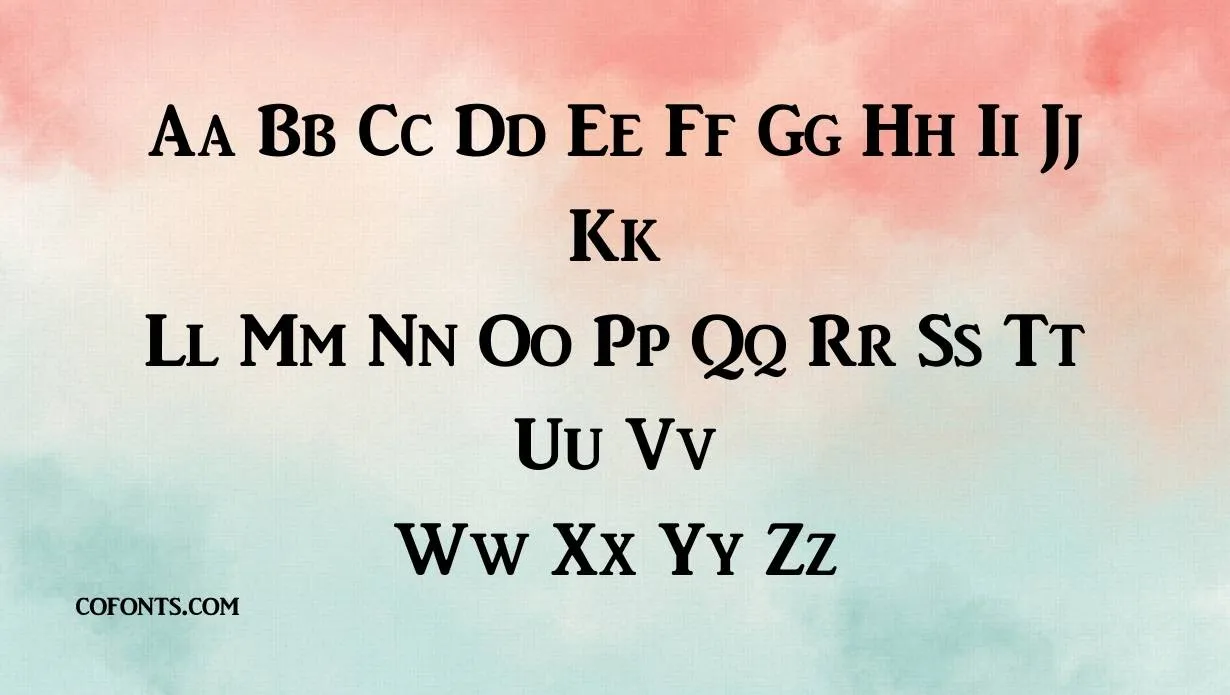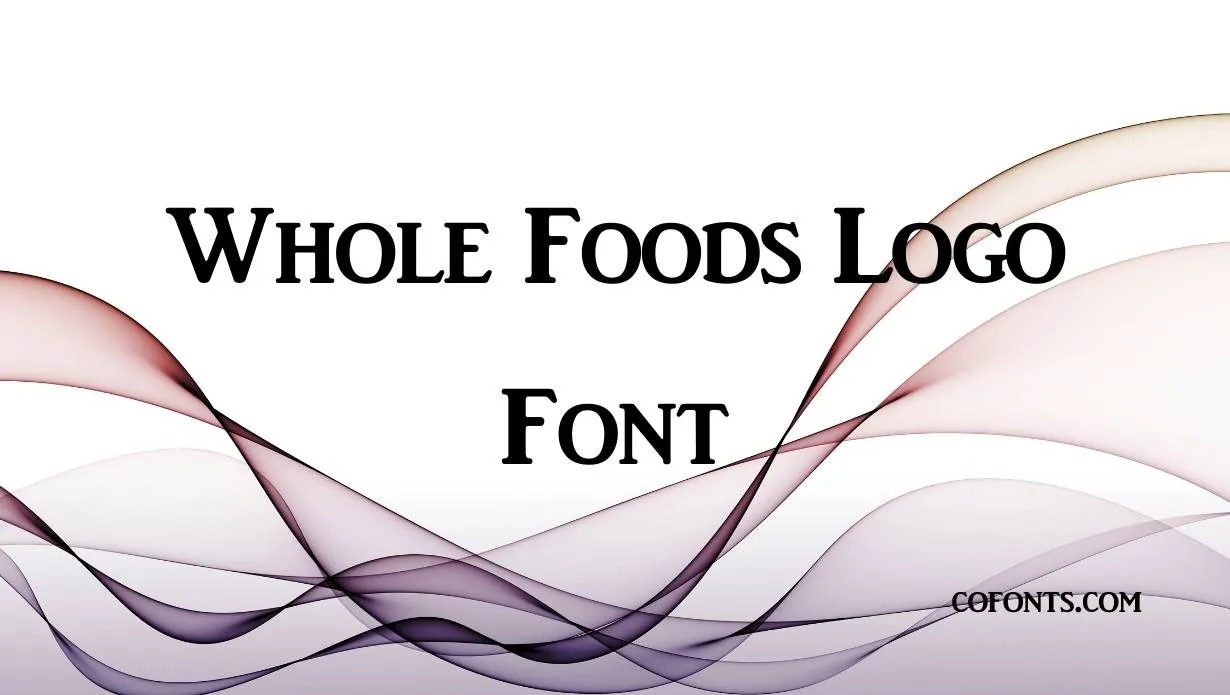
About Whole Foods Logo Font Free Download
Whole Foods Logo Font Free Download is a modern typeface available in multiple variants and styles.
- Whole Foods Logo Font Regular
- Whole Foods Logo Font Bold
- Whole Foods Logo Font Italic